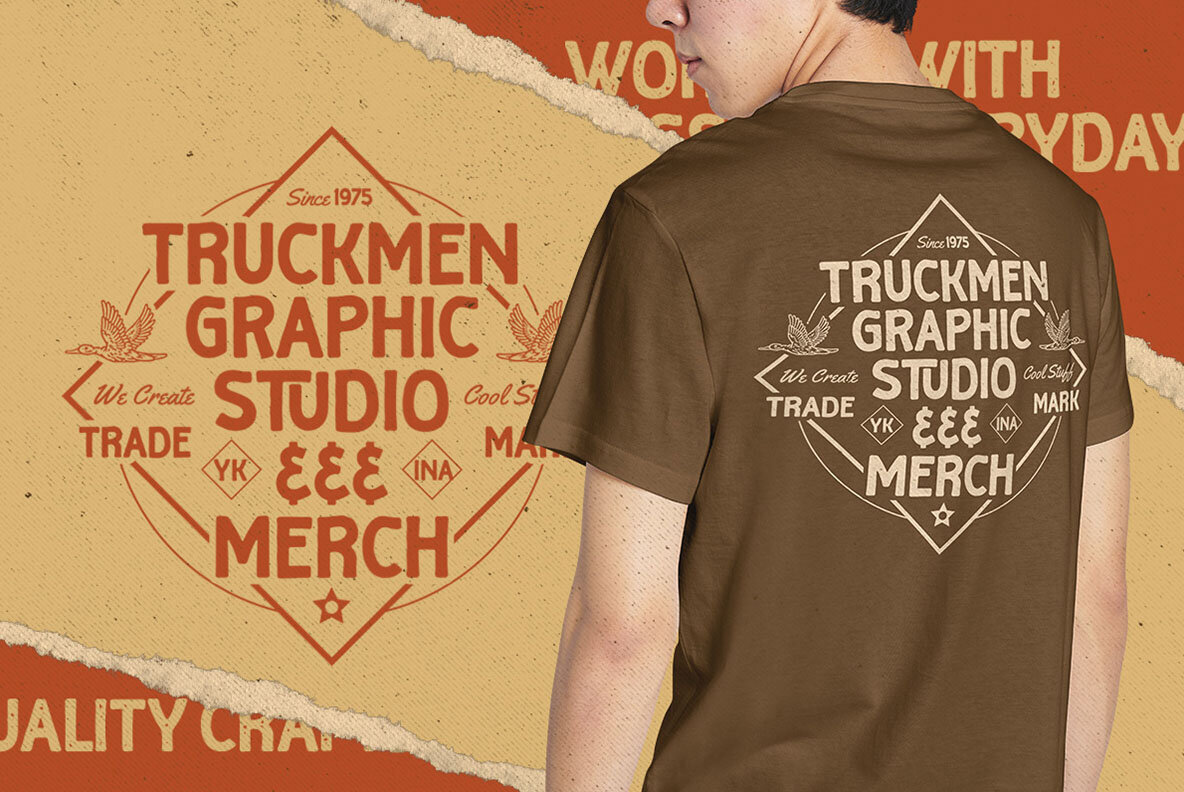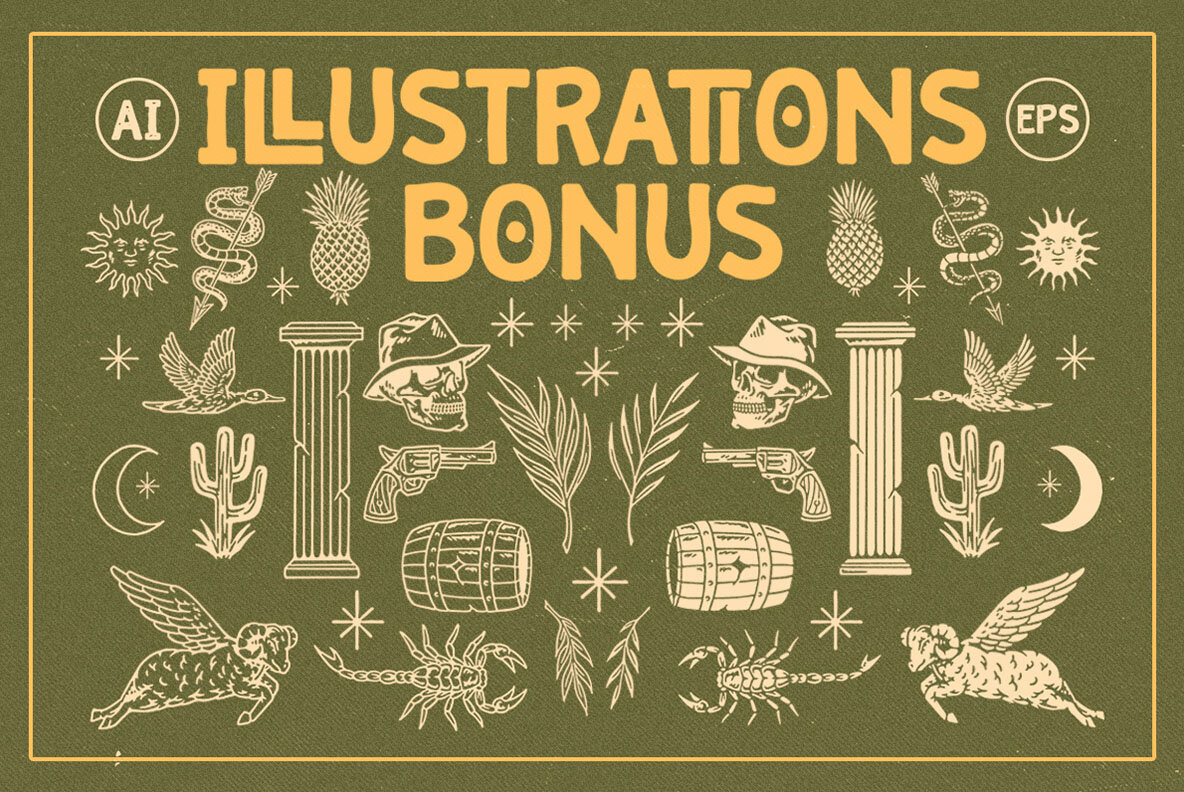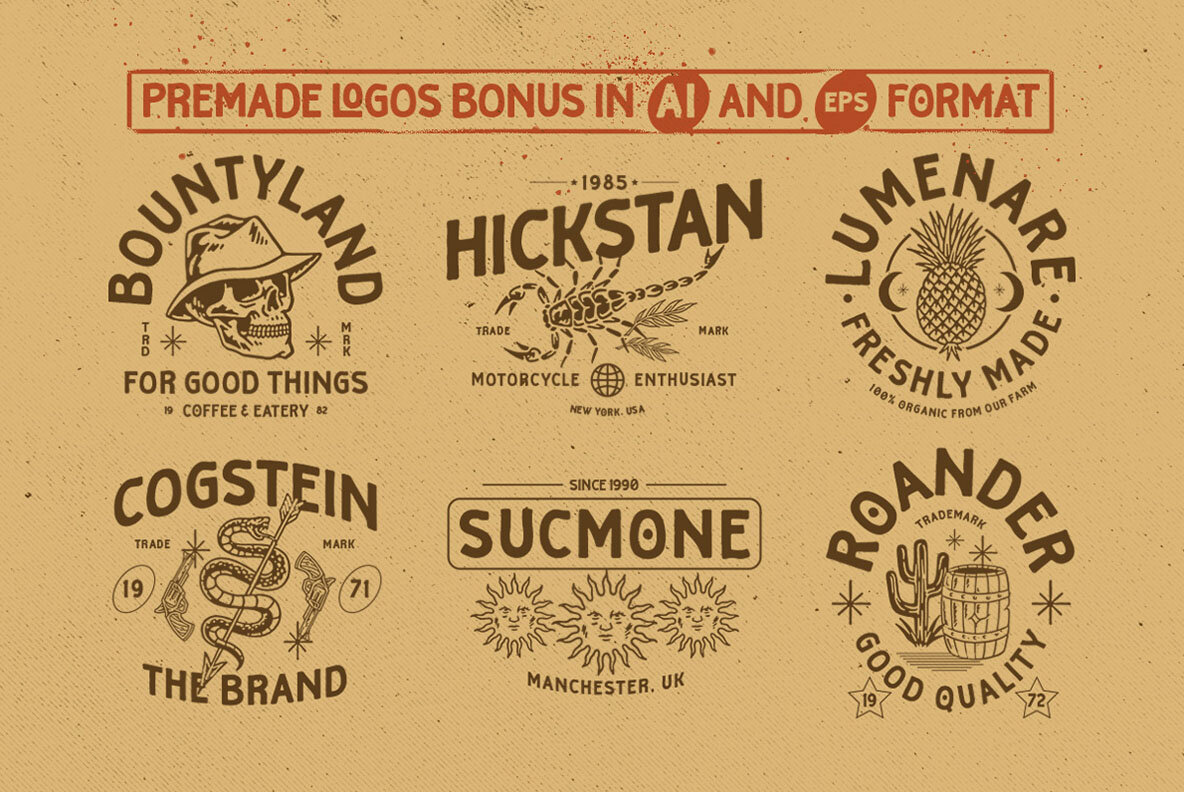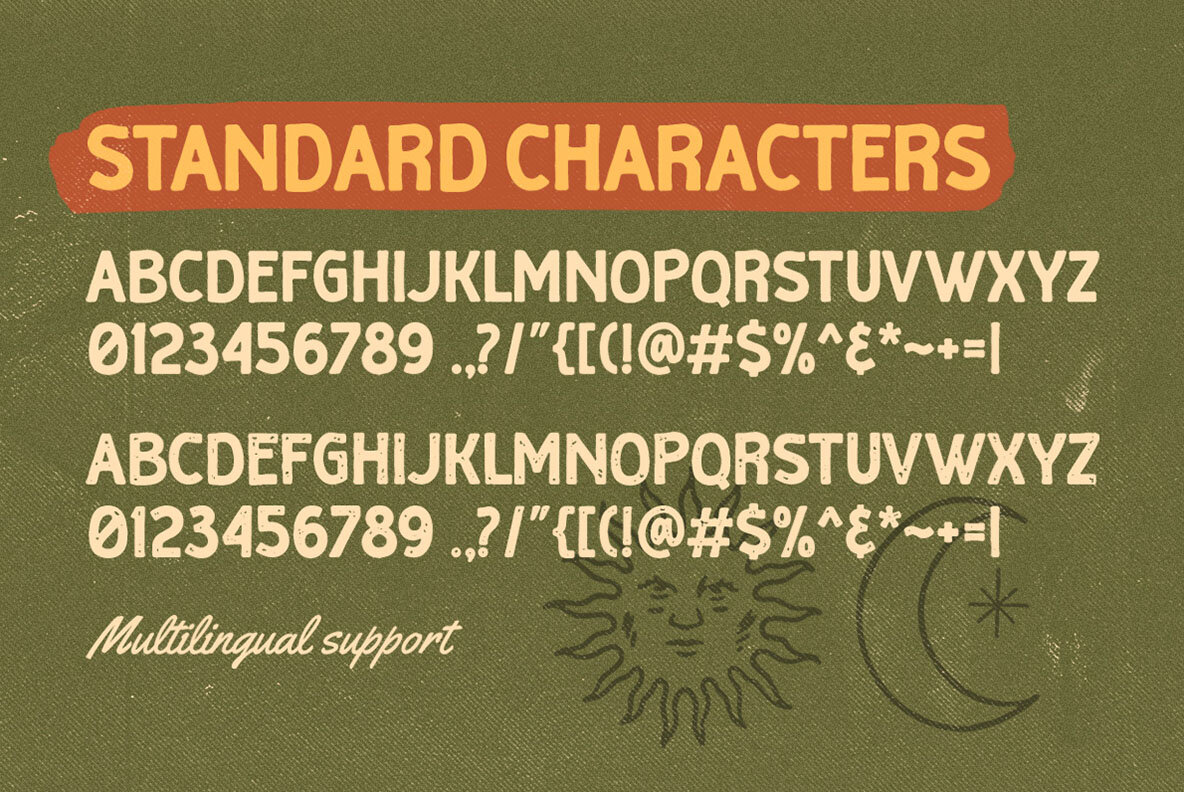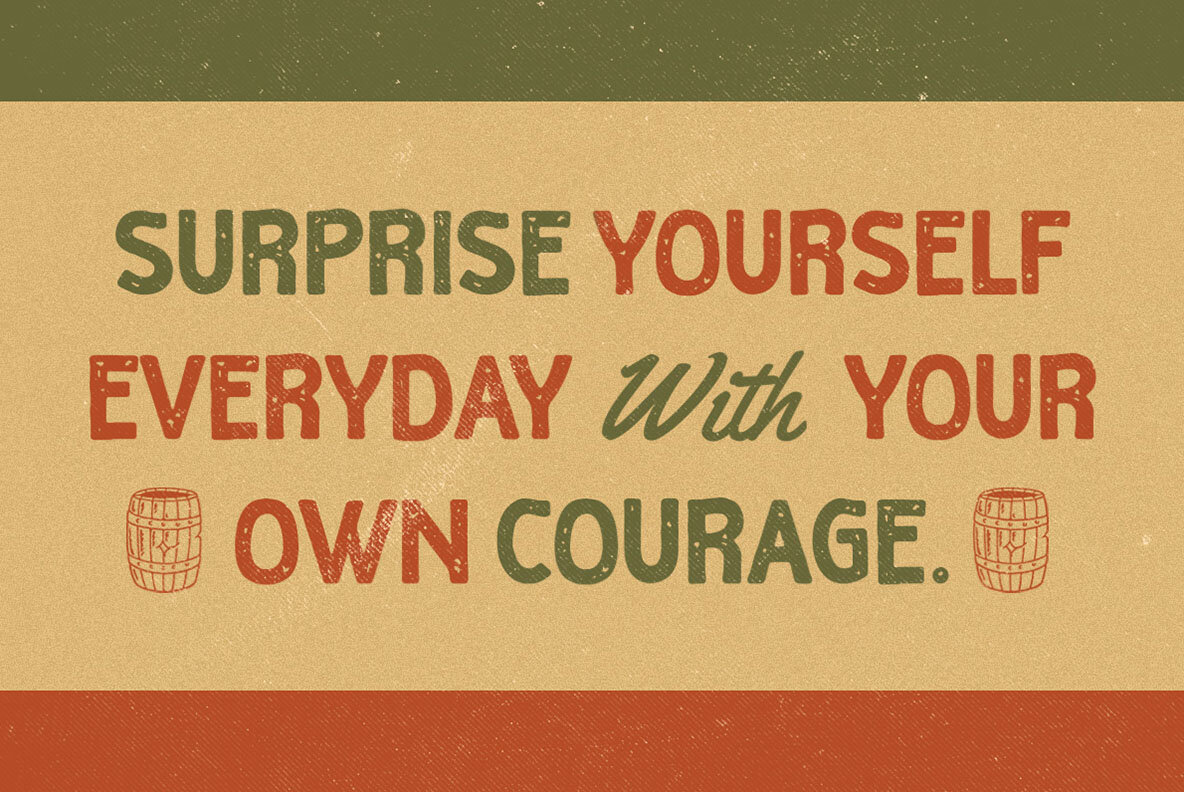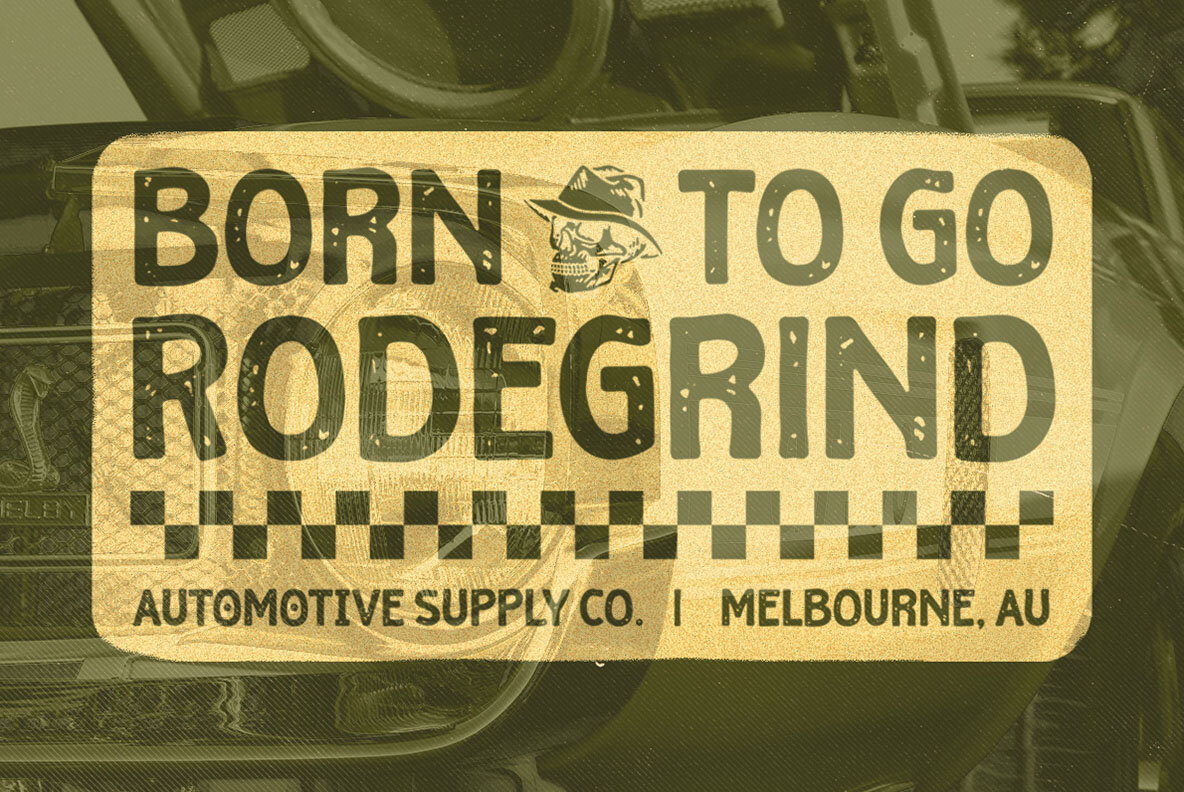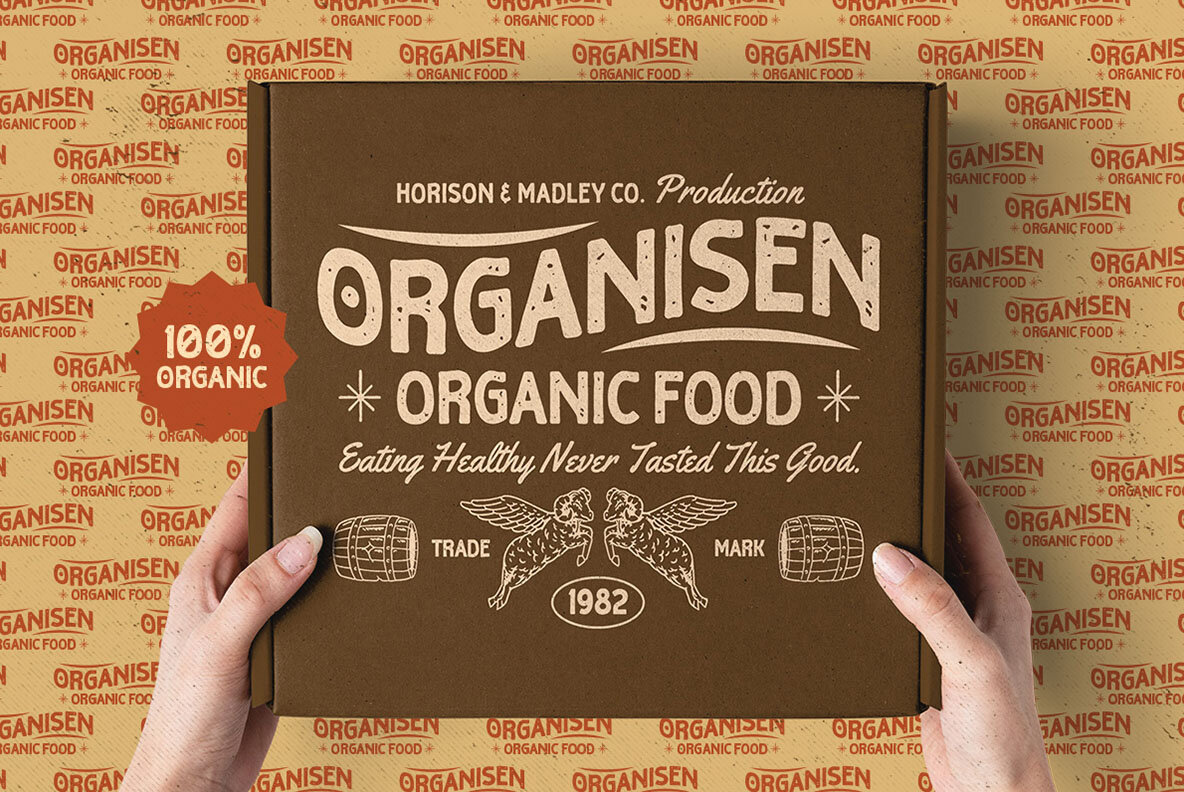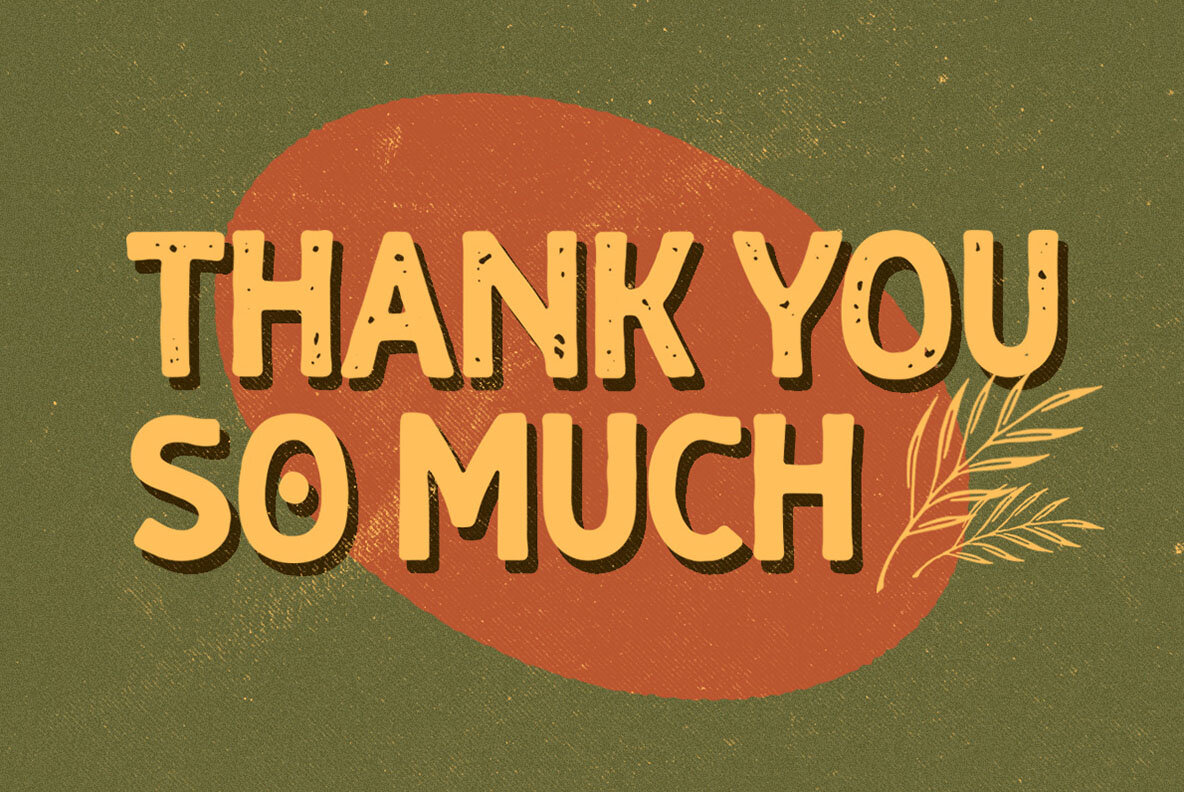
Sunshine Galeuse Font
Sunshine Galeuse by Letterhend Studio offers a display font infused with a classic aesthetic. Ideal for a variety of applications, it comes with premade logos and illustrations, making it perfect for T-shirt designs. This typeface excels in logos, headlines, signage, and formal settings such as invitations, labels, magazines, books, greeting and wedding cards, packaging, fashion items, stationery, novels, and advertisements.Sunshine Galeuse: Classic Display Font with Versatile Style